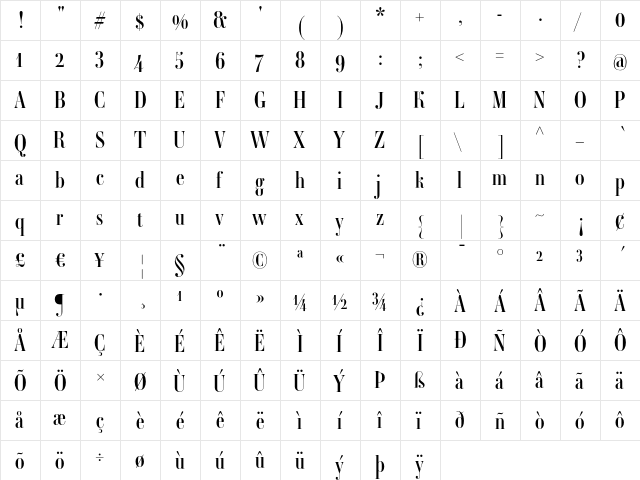
Ambroise Firmin Regular
Design Context for Ambroise Firmin Typeface
Ambroise Firmin is a composed and adaptable typeface that performs quietly and consistently across a wide range of design contexts.